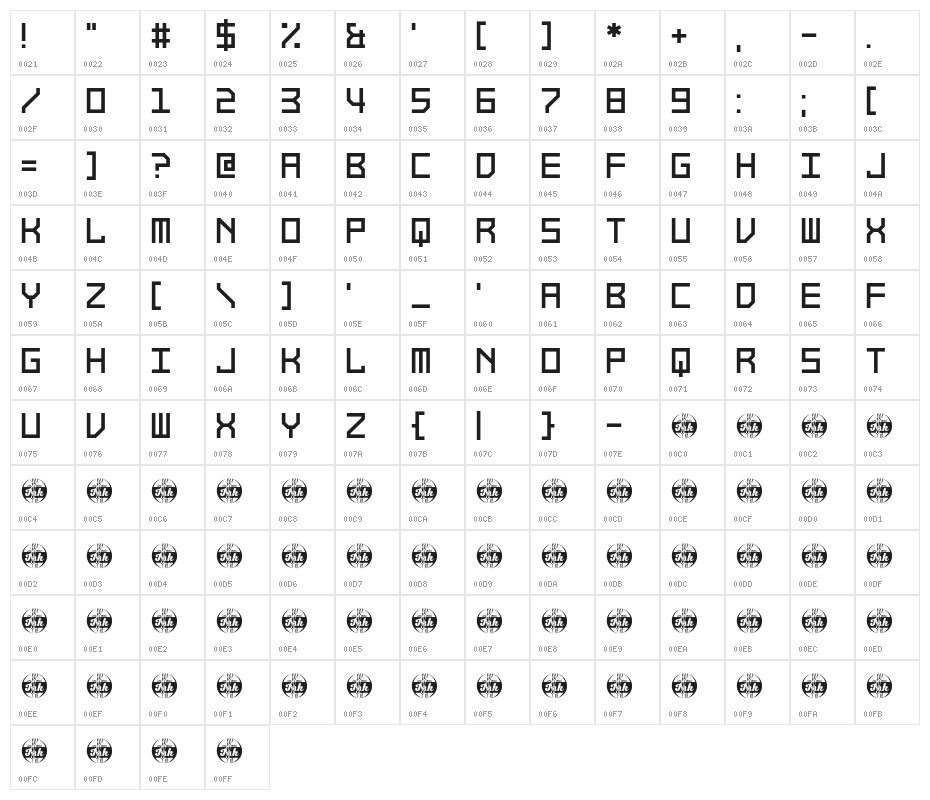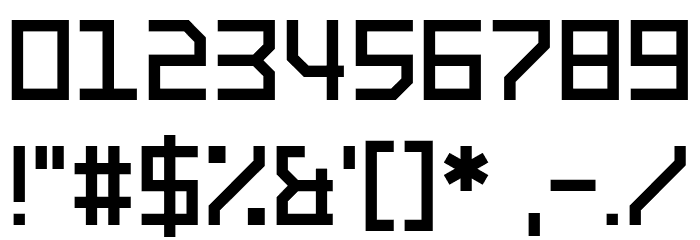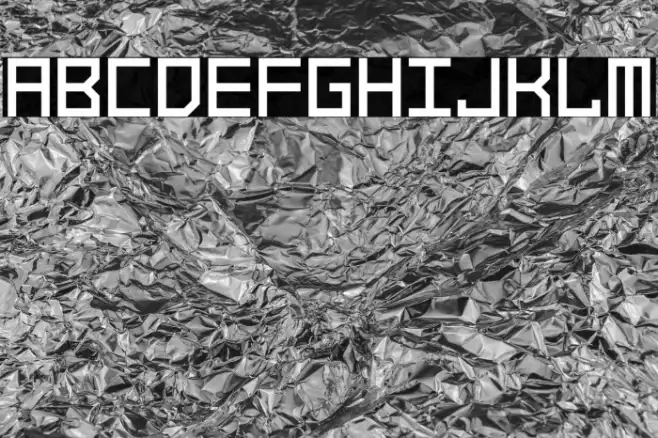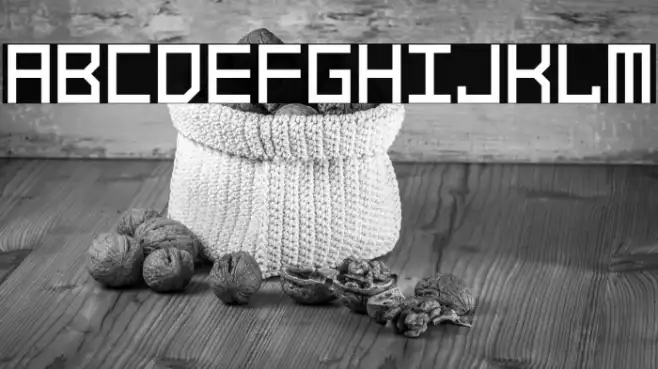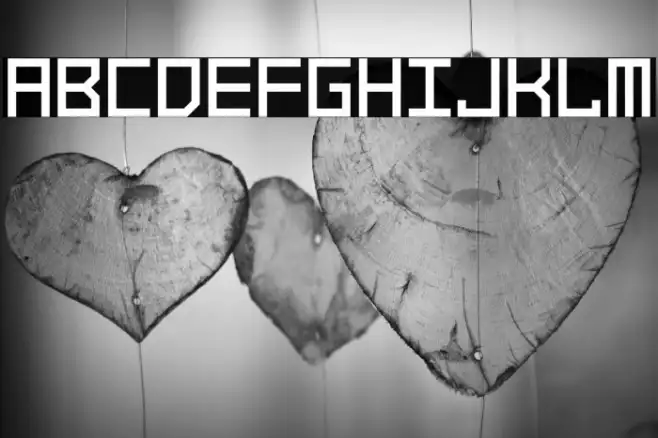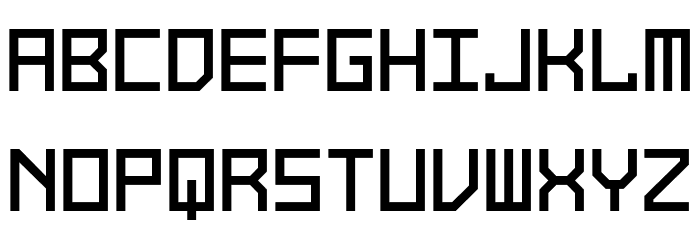
Migraine Machine Font
Migraine Machine Description
This font features a geometric and angular design, characterized by its sharp edges and block-like structure. The letters are uniformly constructed with a consistent stroke width, giving it a mechanical and futuristic appearance. The uppercase and lowercase letters maintain a similar height, enhancing its monospaced feel. The numerals and special characters are designed to match the angular theme, ensuring a cohesive look across all glyphs. This font's distinct style makes it stand out, suitable for projects that require a modern and edgy aesthetic.
| Proposed Projects | Ideal for tech-related branding, video game interfaces, sci-fi posters, and digital art projects. |